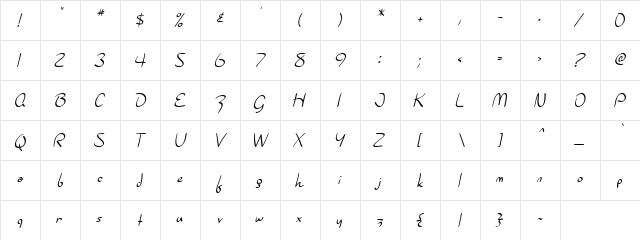
Vidhan 44 Regular
Design Context for Vidhan 44 Typeface
Vidhan 44 is a composed and adaptable typeface that performs quietly and consistently across a wide range of design contexts.